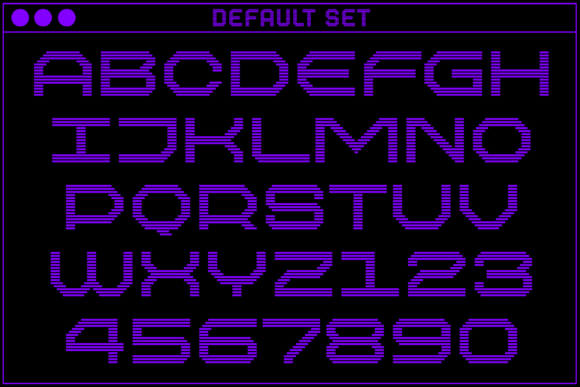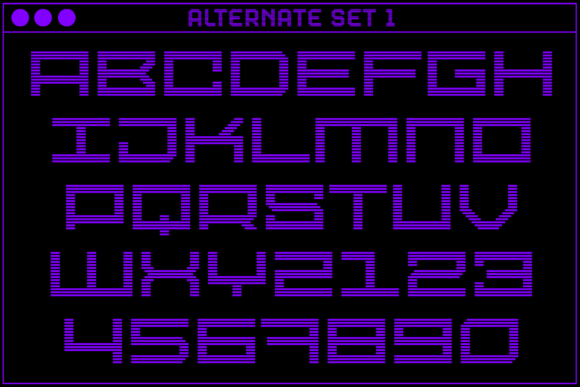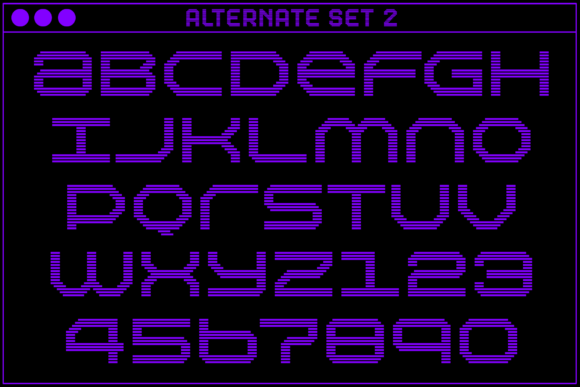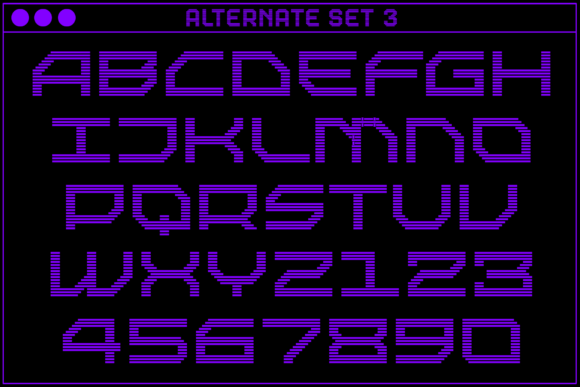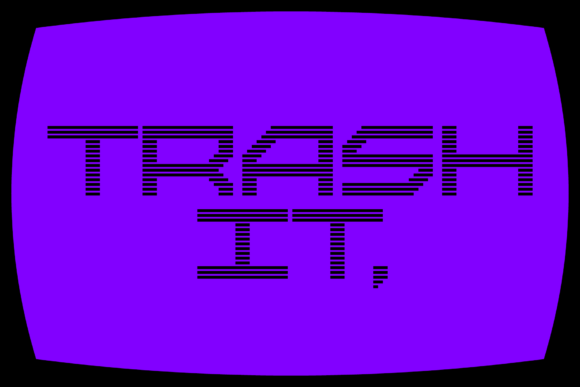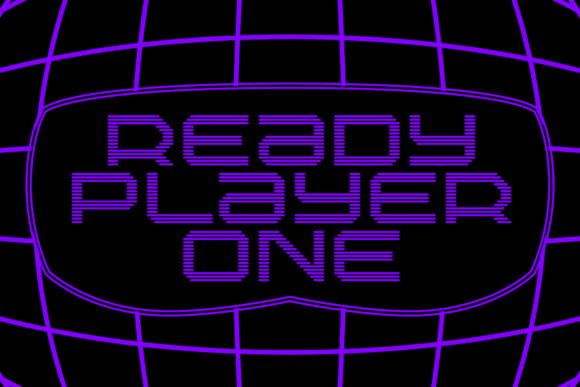
Introduction to MultiType Rows Ample Font
Have you ever been working on a creative project, and you just can’t seem to find the right font to match your unique style? The struggle is real, especially when you’re going for a retro or pixelated aesthetic. That’s where MultiType Rows Ample Font comes in – a cool, uniquely shaped, pixelated display font that’s sure to add a distorted, retro and trendy touch to your designs.
Honest Review: MultiType Rows Ample Font
I recently had the chance to try out the MultiType Rows Ample Font, and I have to say, it’s been a game-changer for my creative project. The font’s unique blend of elegance and modernity makes it an excellent choice for any design resource.
- ✨ High-quality glyphs that are perfect for printing and digital use
- ✨ A wide range of styles and weights that can be used to add depth to your design
- ✨ Easy to use and customize, making it perfect for designers of all levels
- ⚠️ The font may not be suitable for designs that require a transparent background, as it has a subtle texture that can show through
- ⚠️ Some of the glyphs may not be compatible with older versions of certain software
Overall, I’m really impressed with the MultiType Rows Ample Font. It’s a high-quality design resource that’s perfect for any creative project. With its unique style and wide range of customization options, it’s definitely worth checking out.
The MultiType Rows Ample Font is ideal for creating visually appealing designs for presentations, infographics, and marketing materials. You can also use it for creating custom logos, business cards, and other design elements.